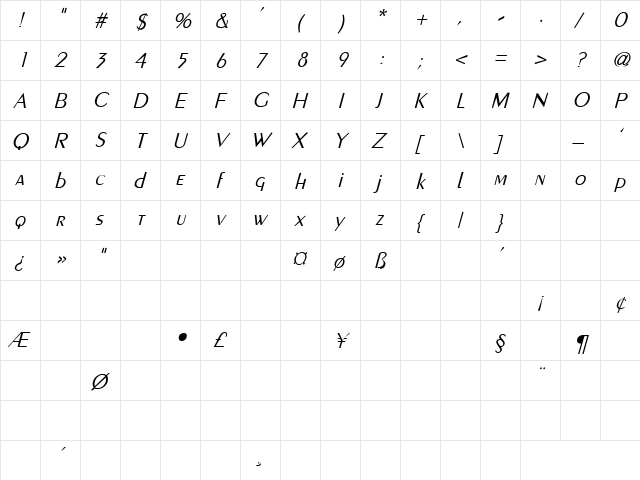
Custard Pie 1 Italic
Design Context for Custard Pie 1 Typeface
Custard Pie 1 takes a measured approach to typography — its balanced proportions and neutral character make it a reliable workhorse for both digital and print work. Its italic angle brings a sense of urgency and motion to the letterforms.